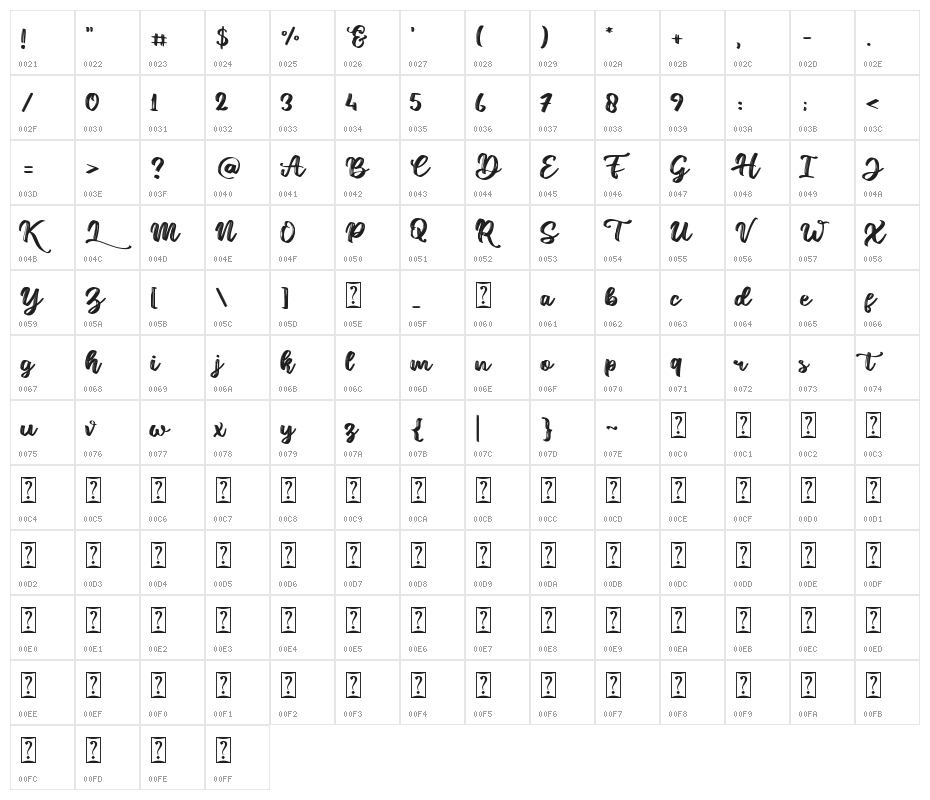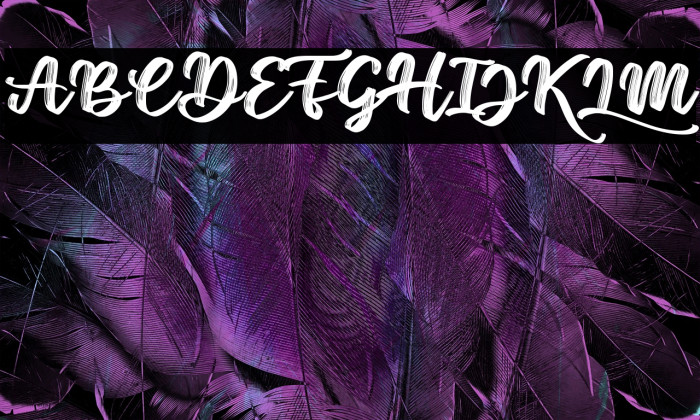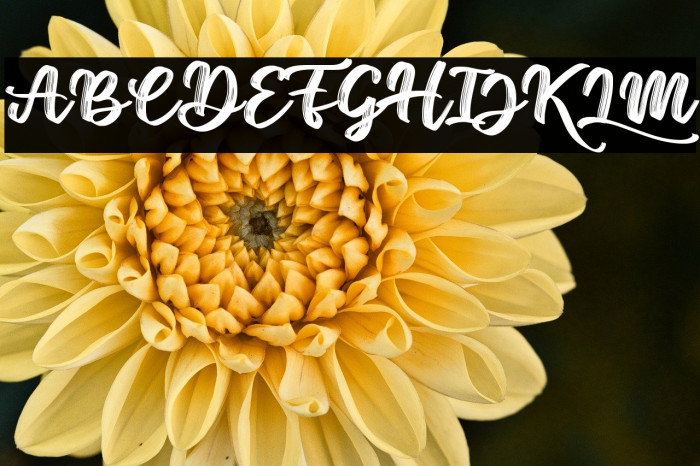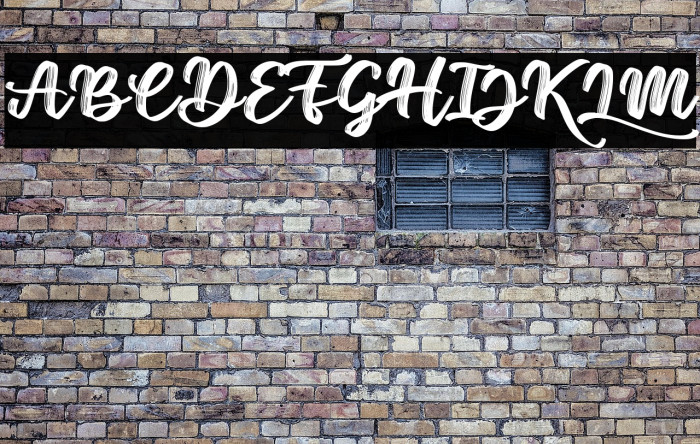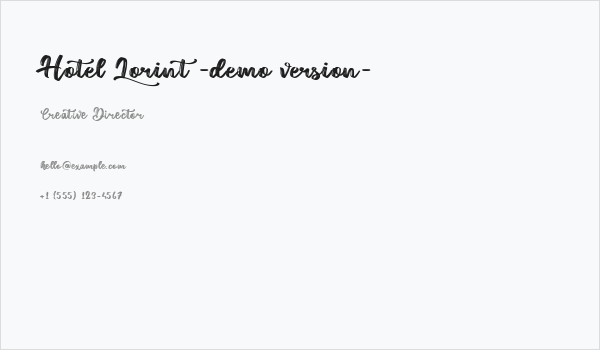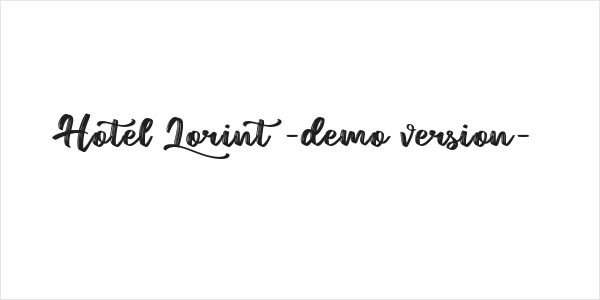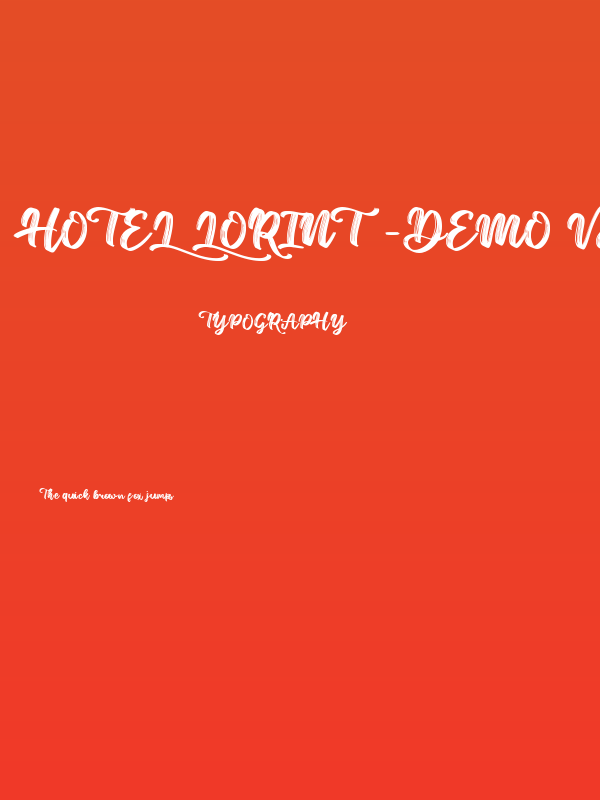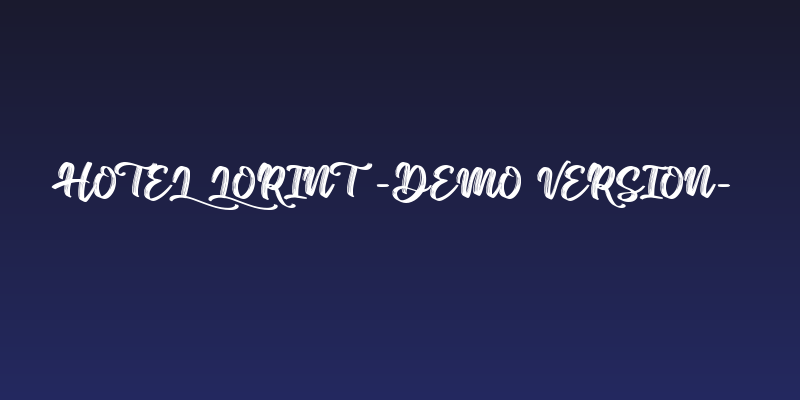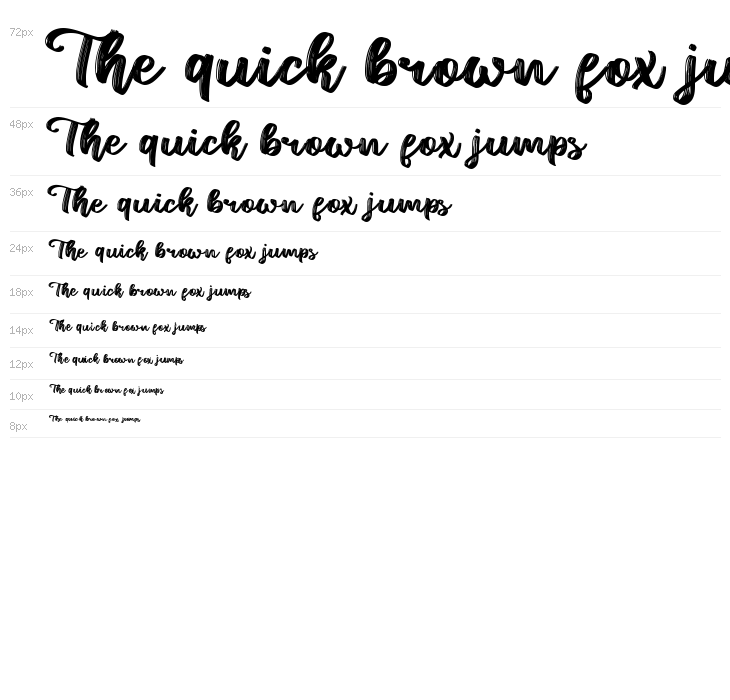
Hotel Lorint -demo version- Font
Hotel Lorint -demo version- Description
This font features a bold and expressive script style with a hand-drawn appearance. The characters are connected with fluid strokes, giving it a dynamic and energetic feel. The uppercase letters are particularly ornate, with exaggerated loops and swashes that add a touch of elegance and flair. The lowercase letters maintain a consistent flow, complementing the uppercase with their smooth curves. Numbers and special characters are designed to match the overall style, ensuring a cohesive look across all text elements. The font's brush-like texture adds depth and character, making it stand out in any design.